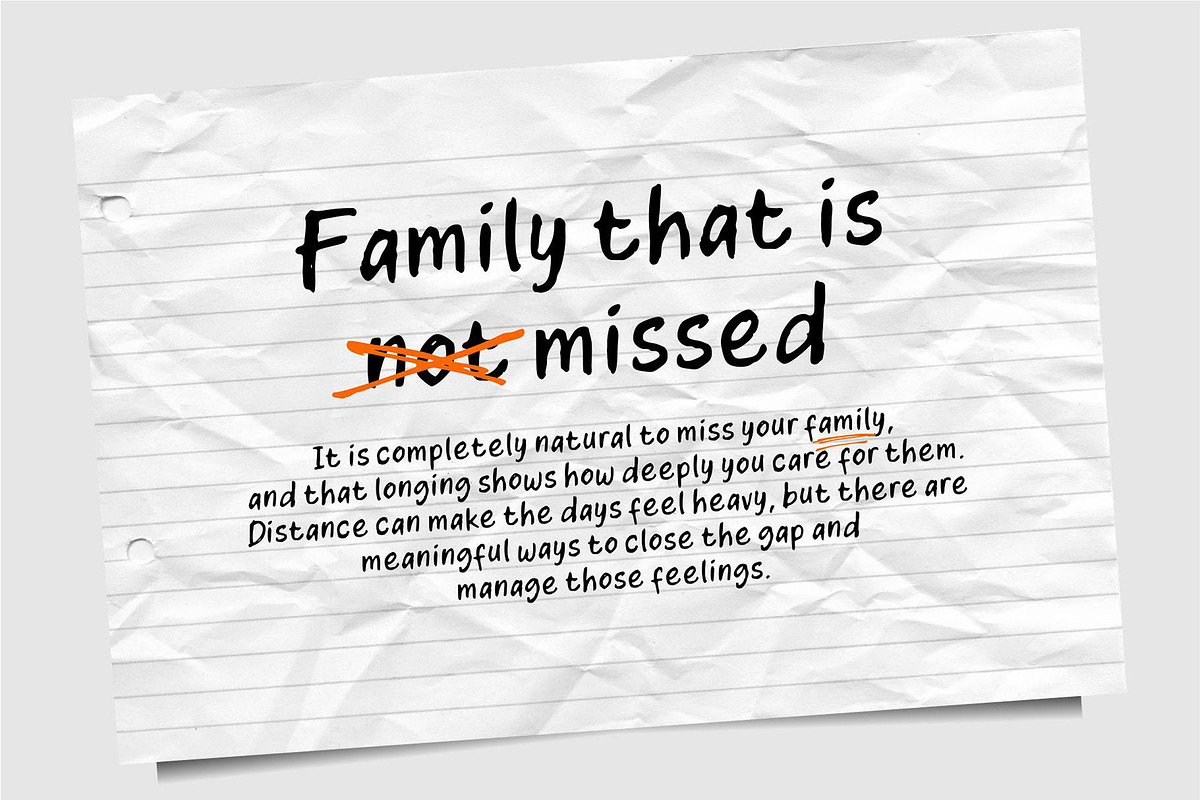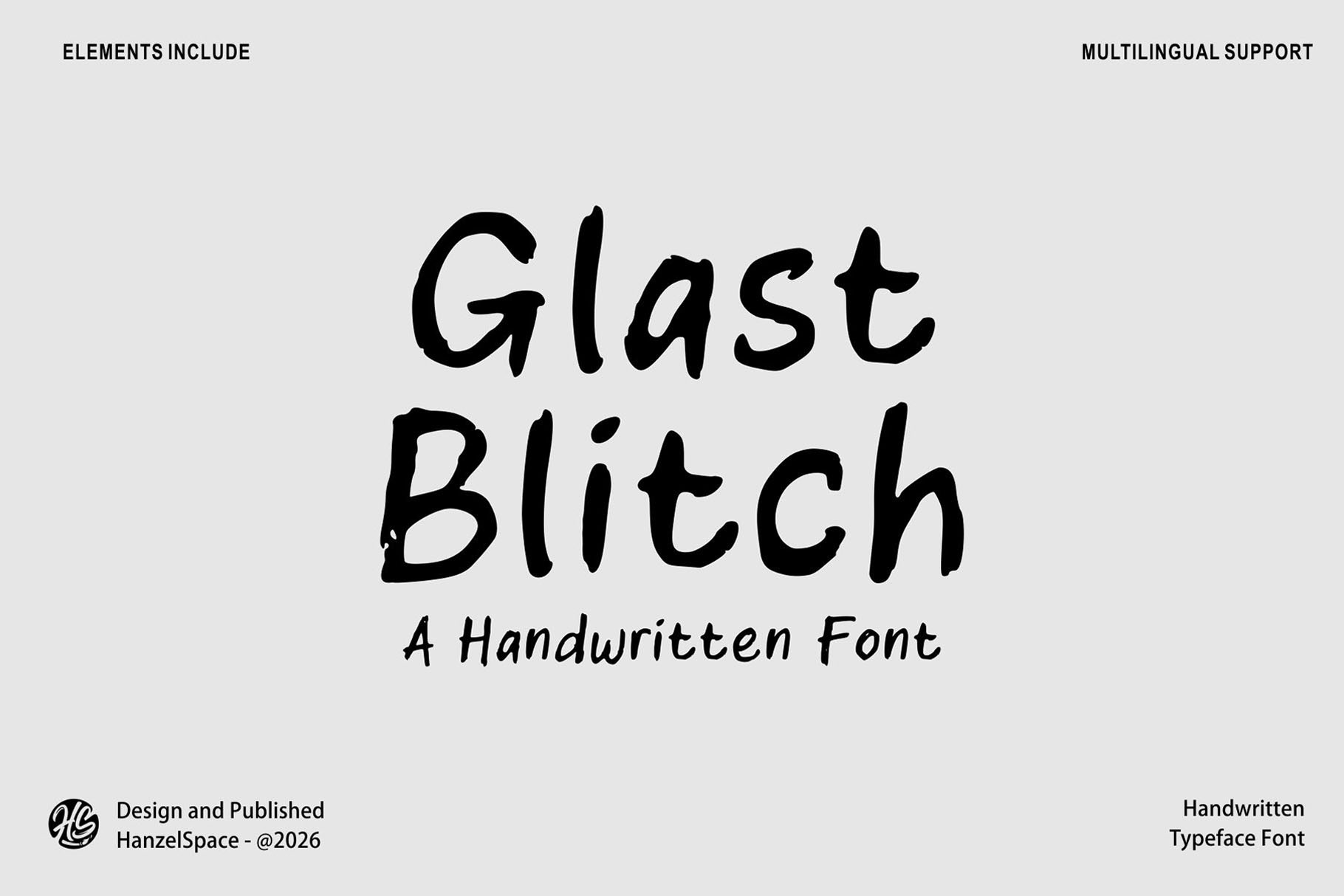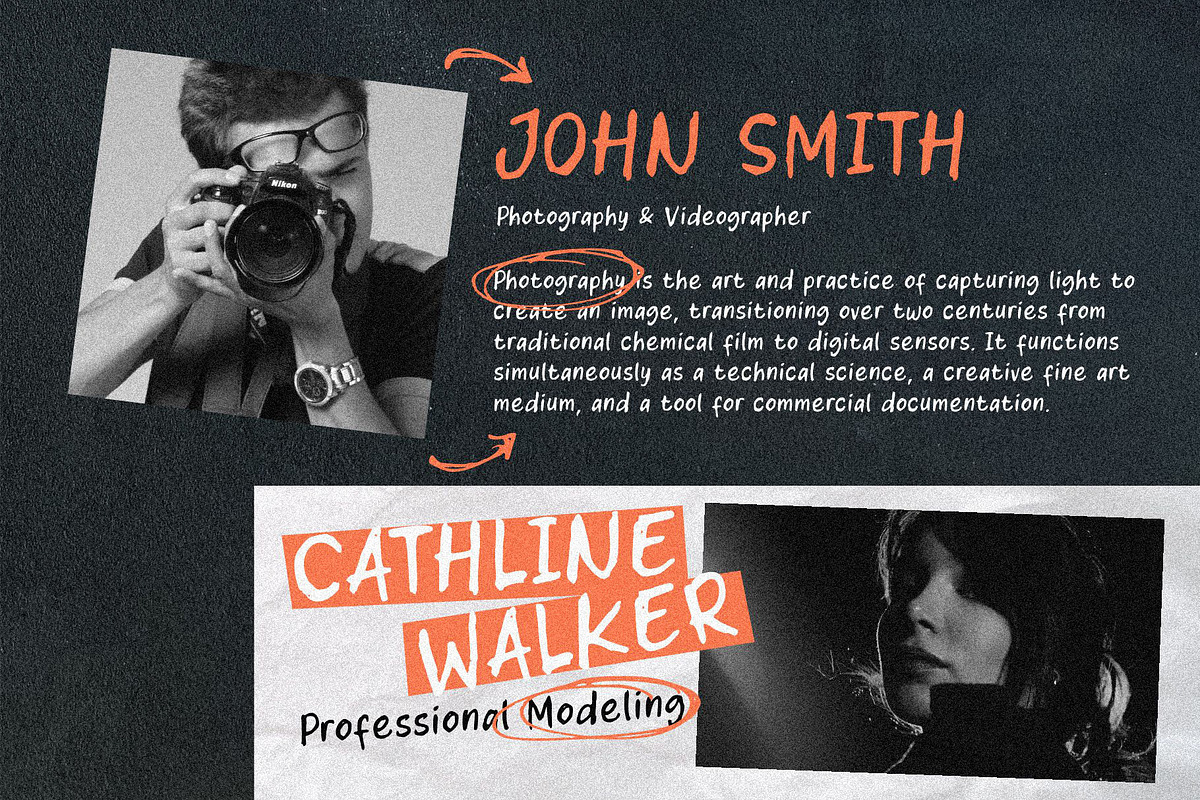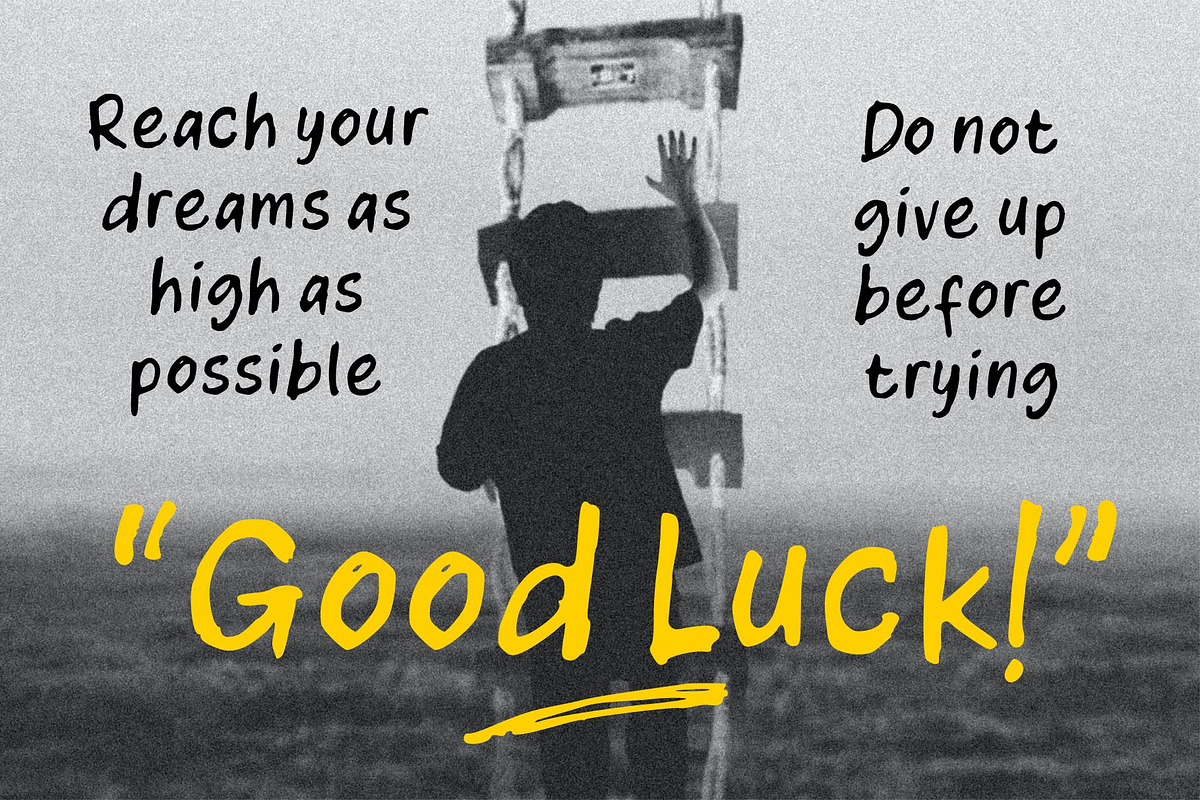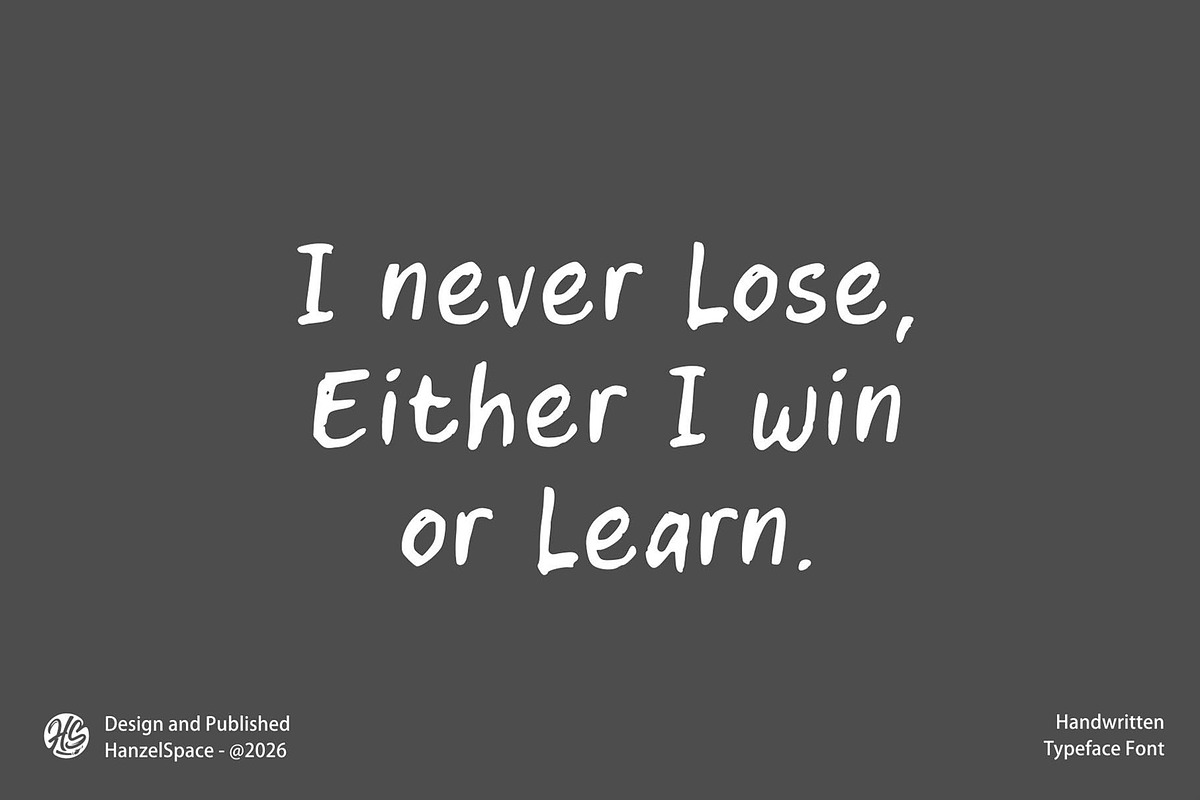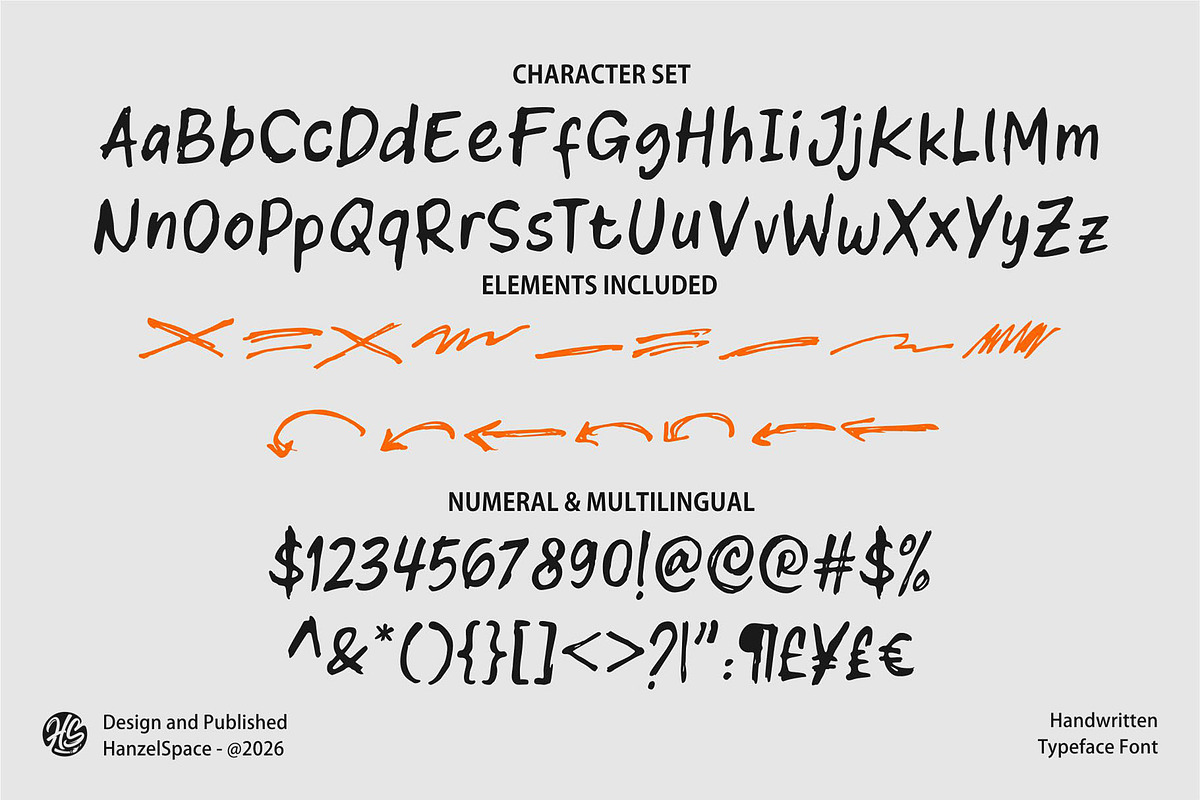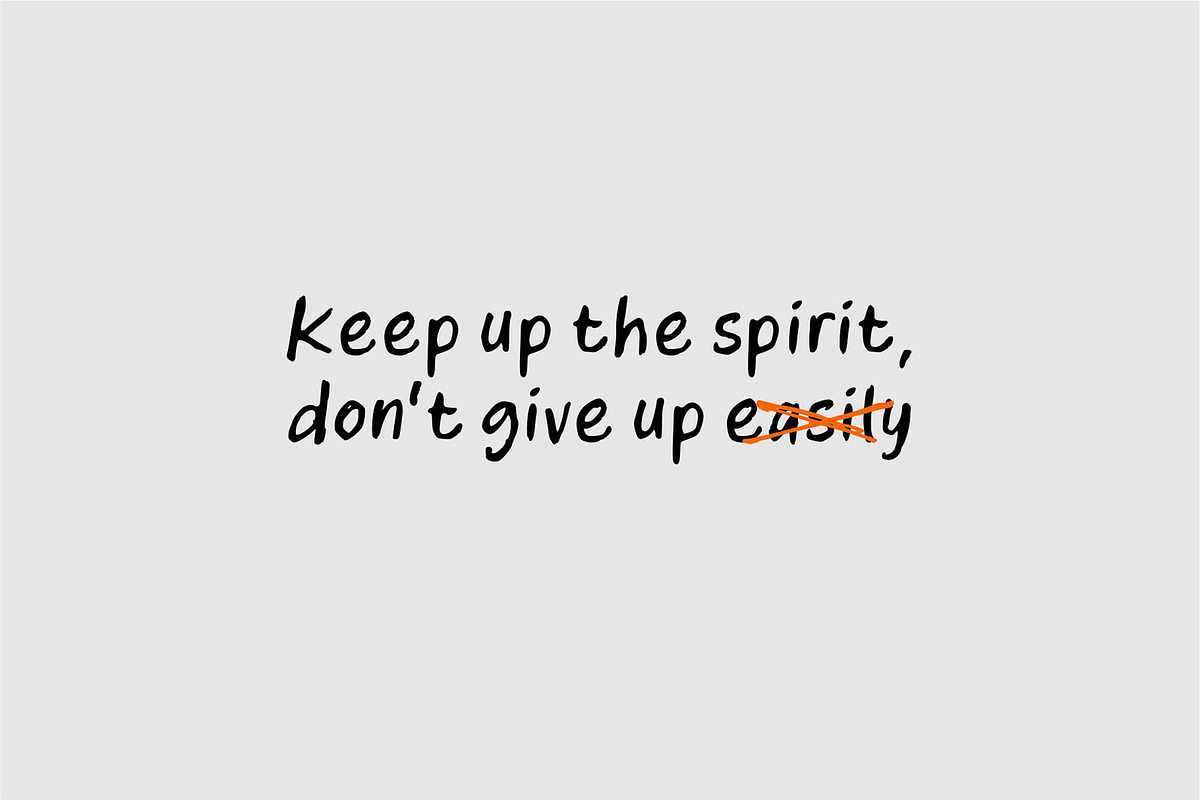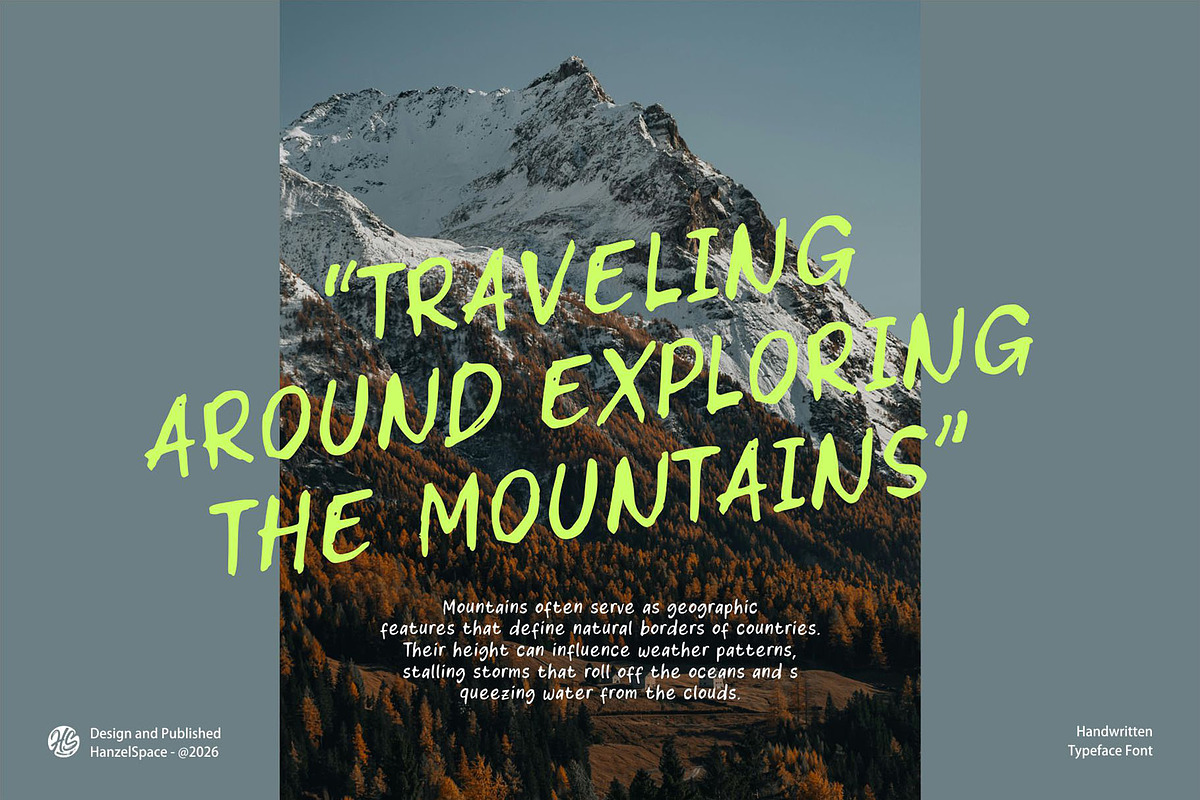
Glast Blitch Handwritten Font
Introducing **Glast Blitch **Handwritten Font This font is created using authentic handwriting or hand-drawn script on paper and written in a rough style with an ink pen, giving the resulting font an organic character. This font can be used in your design projects, such as packaging, magazines, brands, quotes and others.
Multilanguage Supports
Element Include